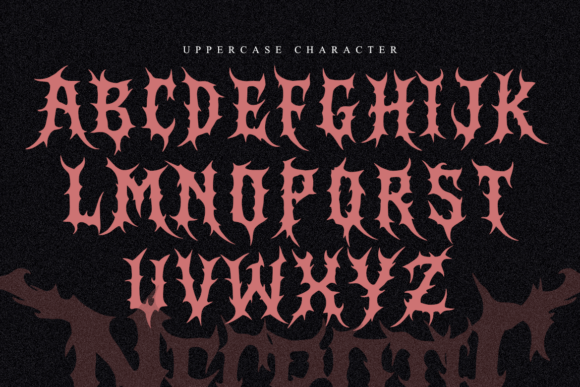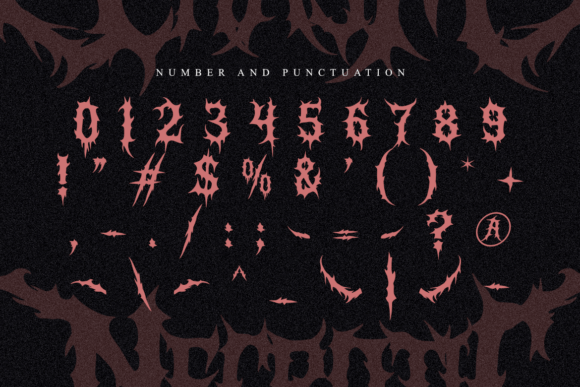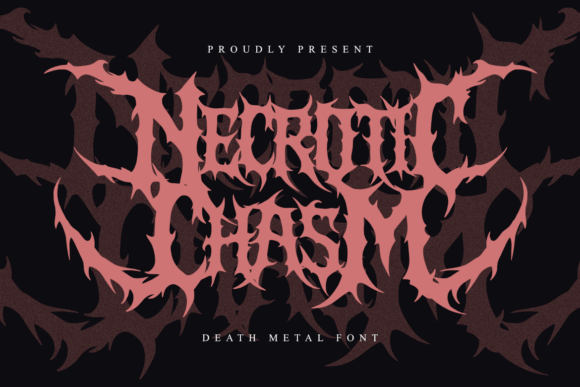
Introduction to Necrotic Chasm Font
Necrotic Chasm is a brutal display font that embodies the dark, chaotic energy of the underground metal scene.
Designed with sharp, thorn-like extensions and intricate organic shapes, this font is a powerhouse for extreme visual projects It is highly recommended for death metal band logos, black metal aesthetics, horror movie titles, and edgy merchandise.
Key Features of Necrotic Chasm Font